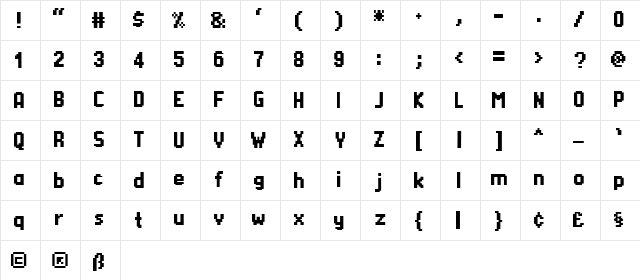
Silom Regular
Foundry: Tom Tor,
Designer: Tom Tor
Silom Family
Design Context for Silom
Silom is a composed and adaptable typeface that performs quietly and consistently across a wide range of design contexts.
Pro Tip: Use Silom in both headline and body roles to test its range before committing to a single application.